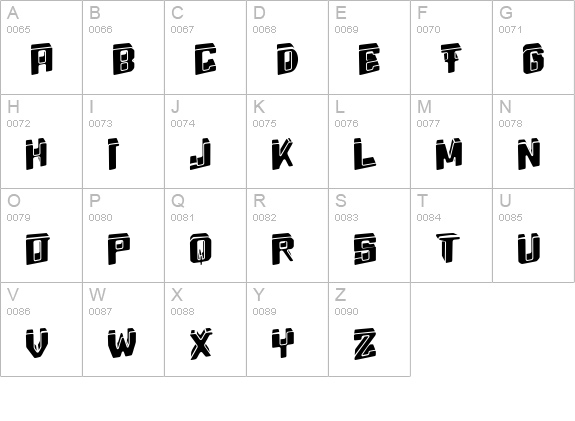
Energydimension Font Details
Energydimension is a stunning and dynamic font that effortlessly captures the essence of energy and movement. With its bold and modern design, this font is perfect for adding a touch of excitement and vigor to any project. The unique letterforms of Energydimension exude a sense of power and momentum, making it an ideal choice for logos, headlines, posters, and more. This font's versatility lies in its ability to adapt to various design styles. Whether you're working on a futuristic sci-fi project, a sports-related campaign, or anything that demands a high-energy aesthetic, Energydimension is the perfect companion. Its clean lines and sharp edges convey a sense of precision and strength, while its subtle curves add a touch of elegance and sophistication. One of the most remarkable aspects of Energydimension is that it is freely available to download at FontsMarket.com. This means that you can easily incorporate this incredible font into your designs without any restrictions or limitations. It's a font that empowers creativity, allowing you to unleash your imagination and create visually captivating and impactful designs. Energydimension's wide range of weights and styles gives you the freedom to experiment and find the perfect combination for your project. From light and airy to bold and commanding, this font offers endless possibilities. Its meticulous attention to detail ensures legibility even at smaller sizes, making it suitable for both print and digital applications. Whether you're a graphic designer, a creative professional, or simply someone who appreciates the power of typography, Energydimension is a font that will undoubtedly leave a lasting impression. Download it for free at FontsMarket.com and elevate your designs to a whole new level of energy and excitement.